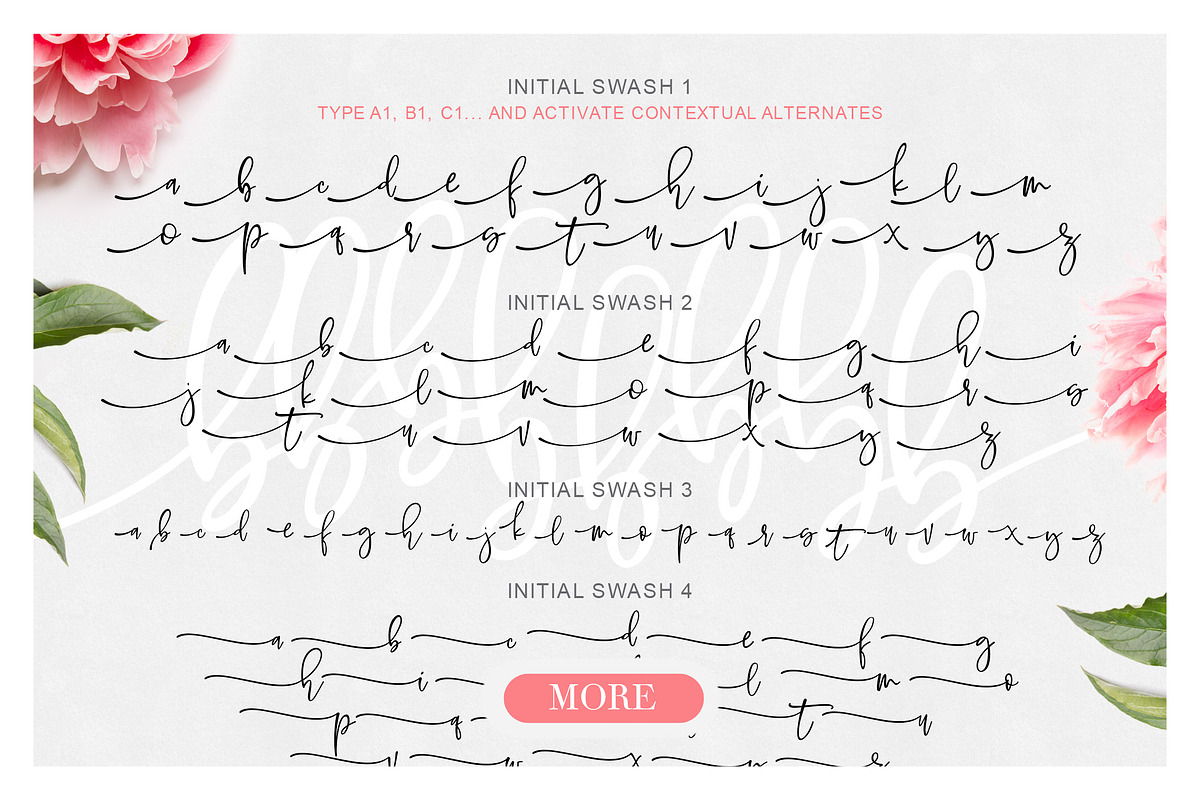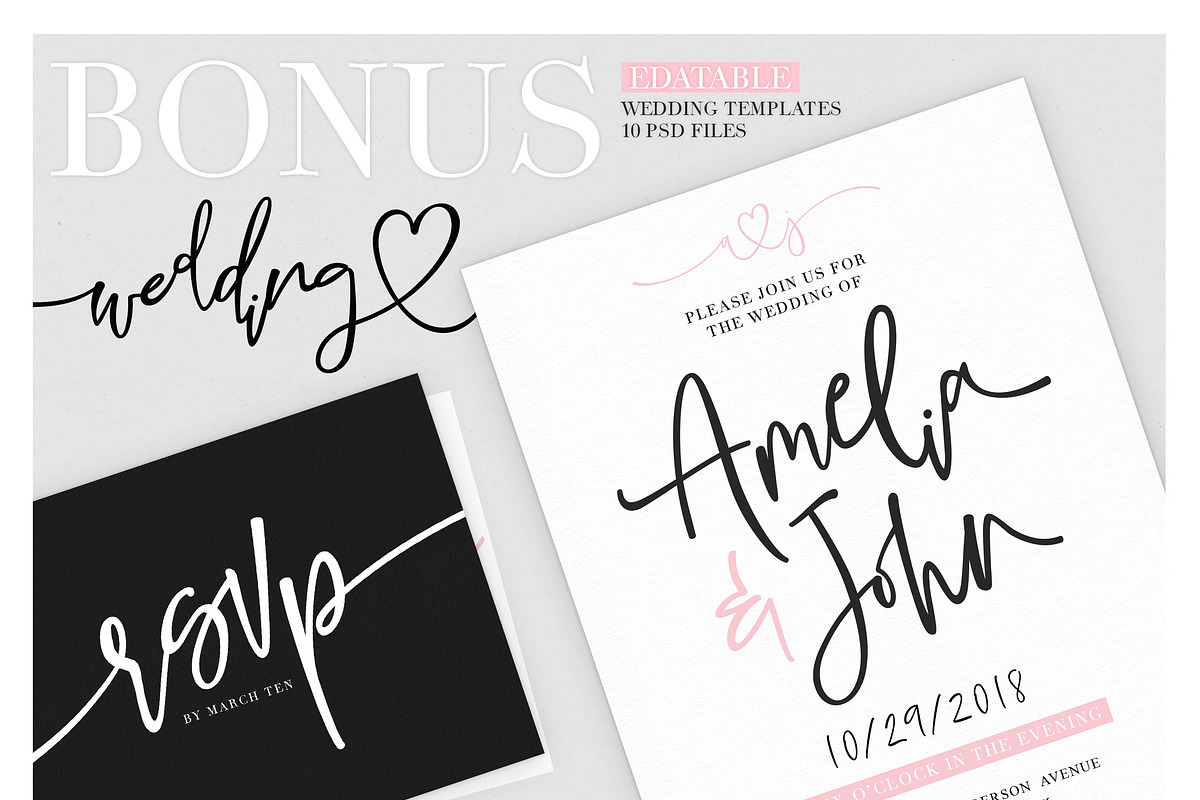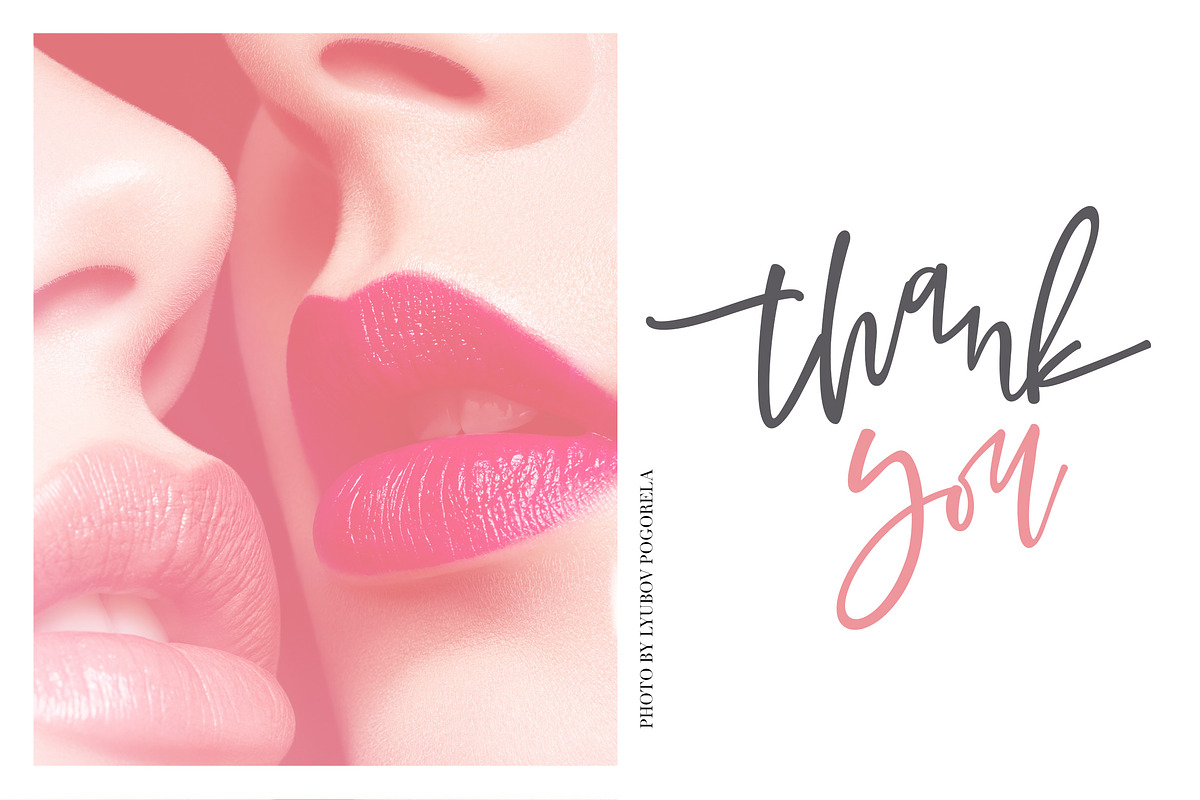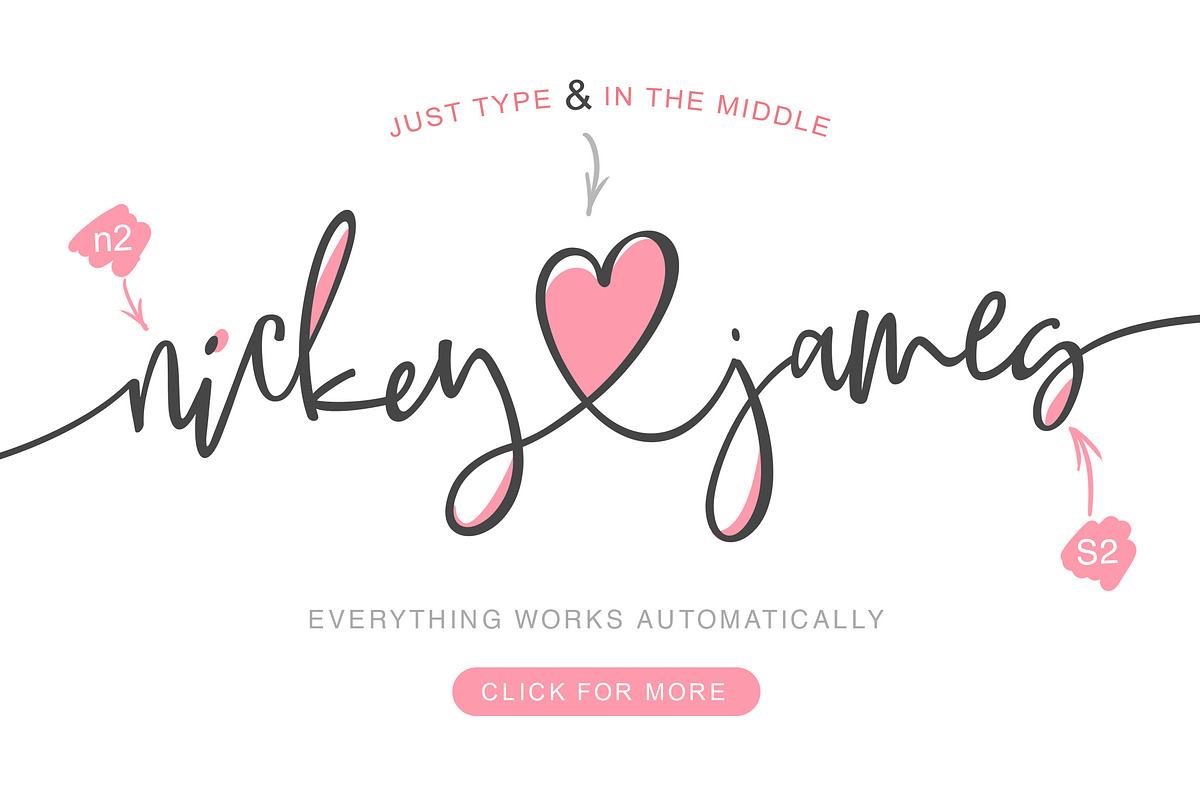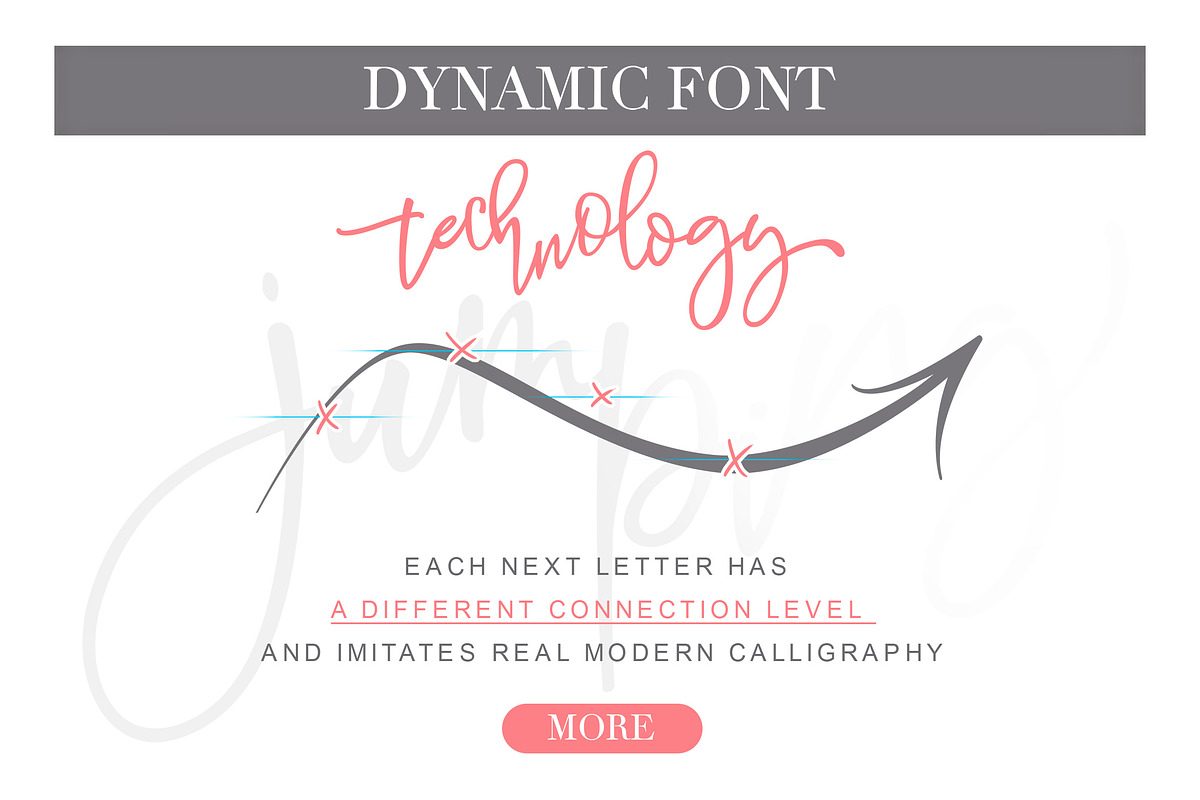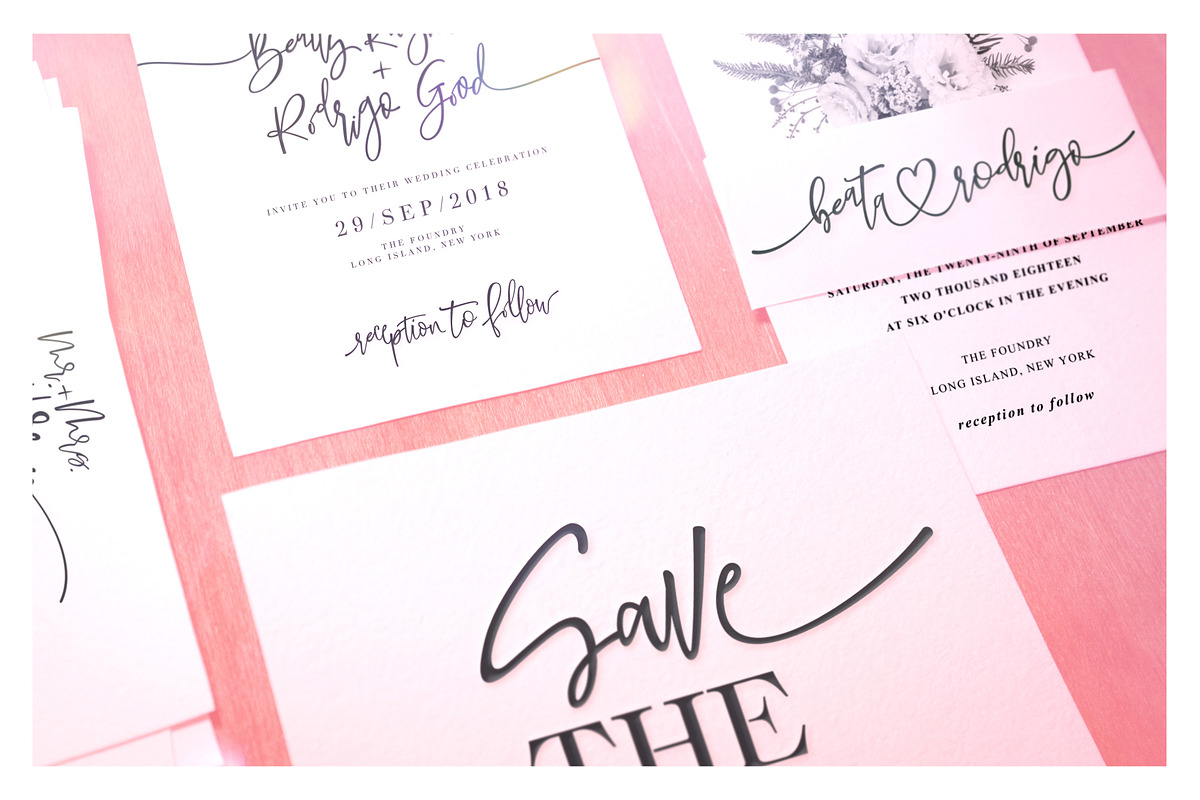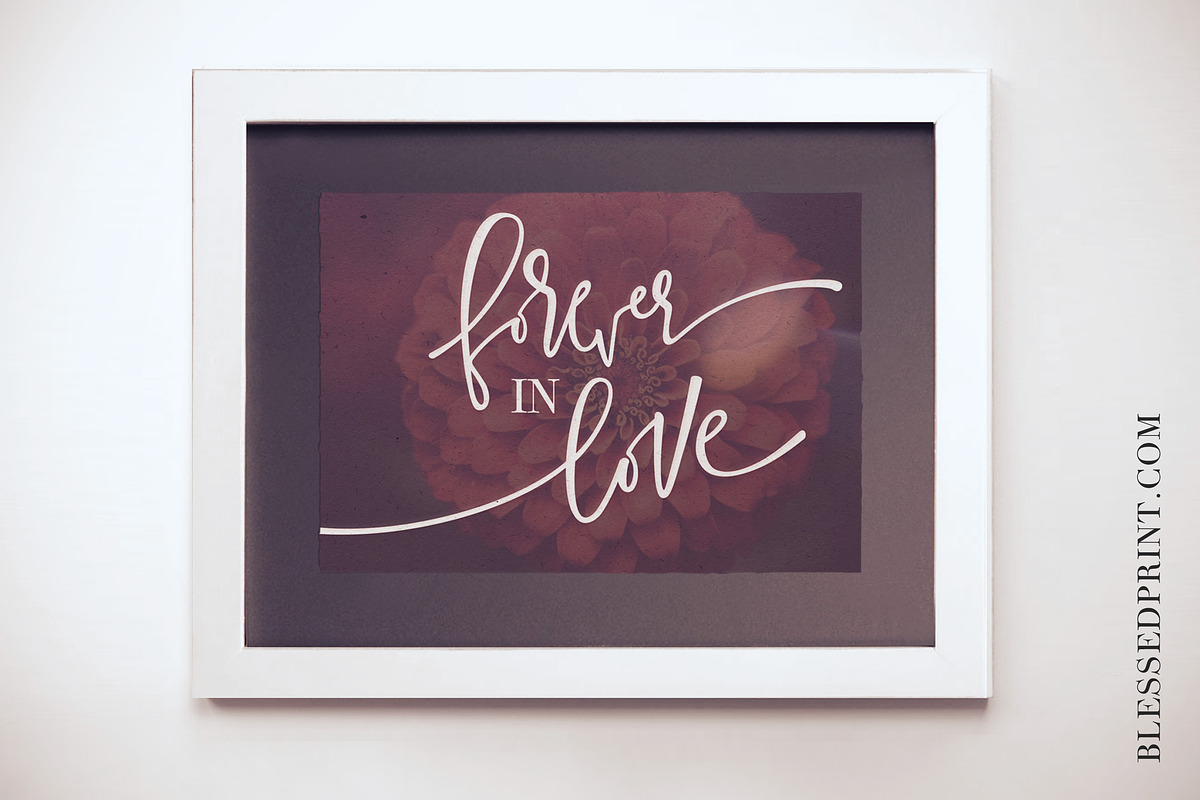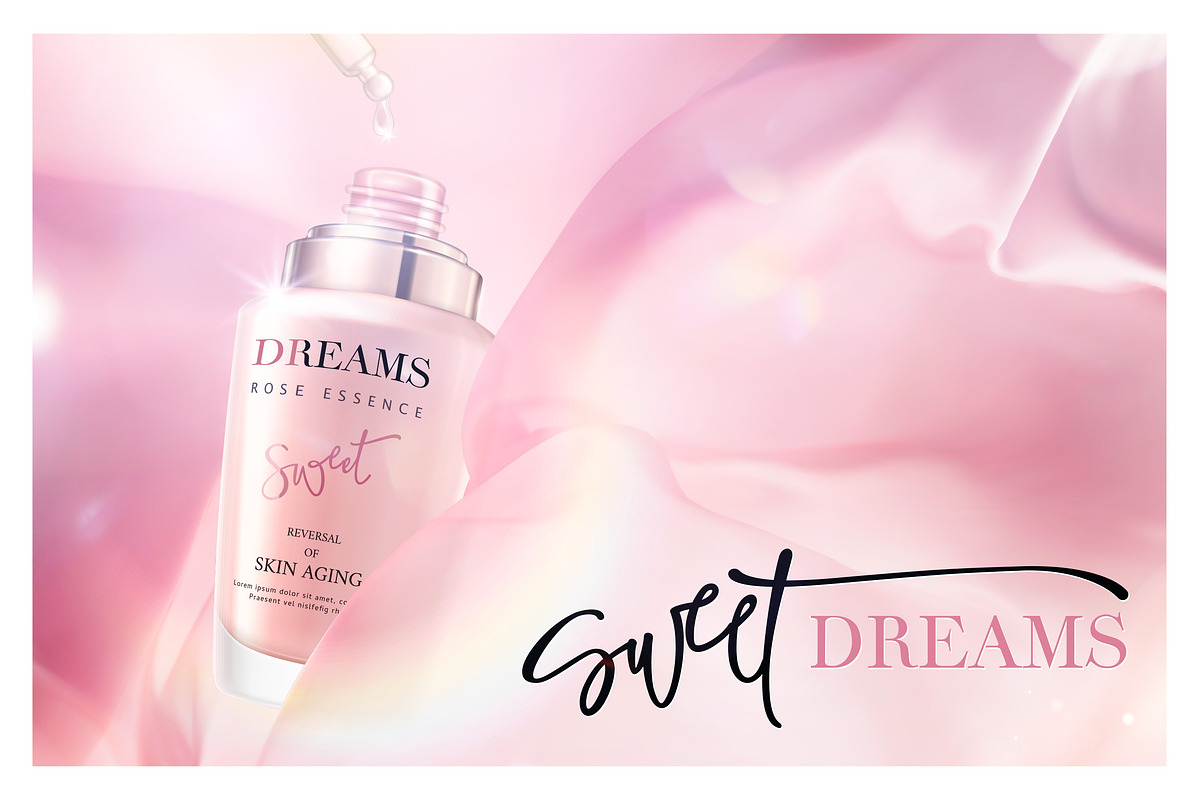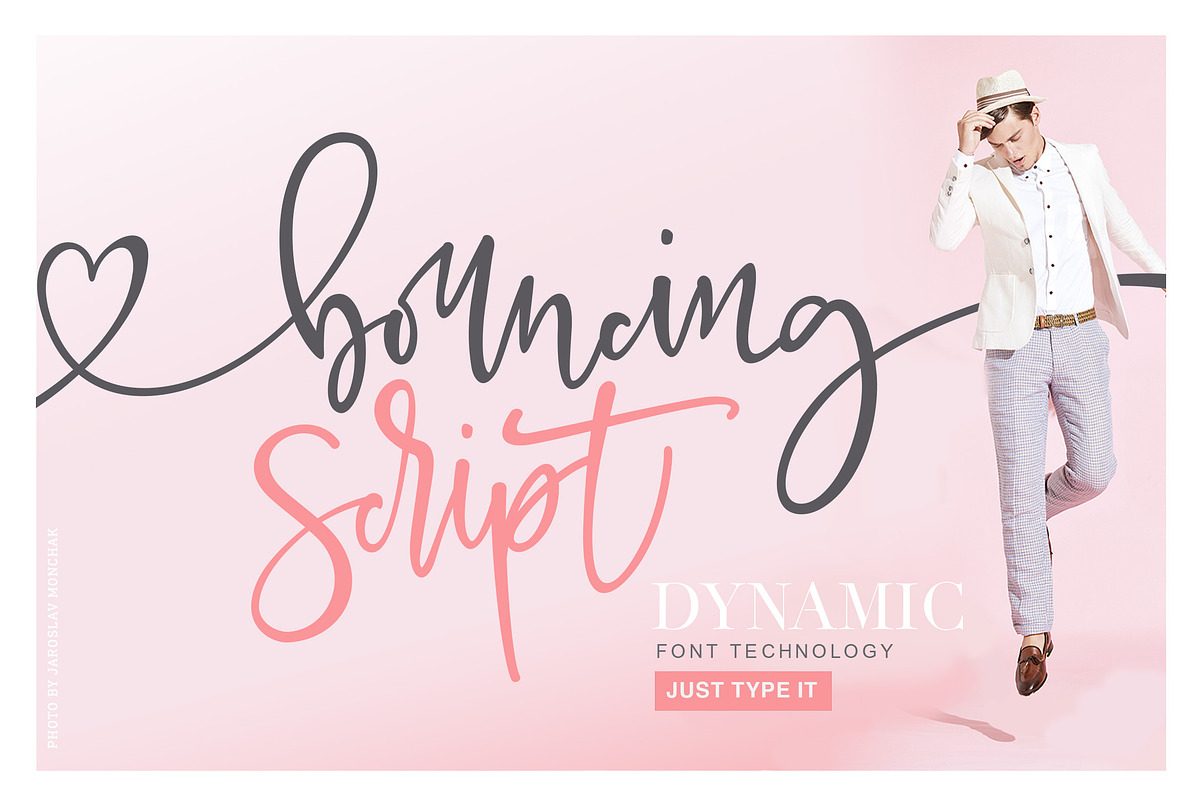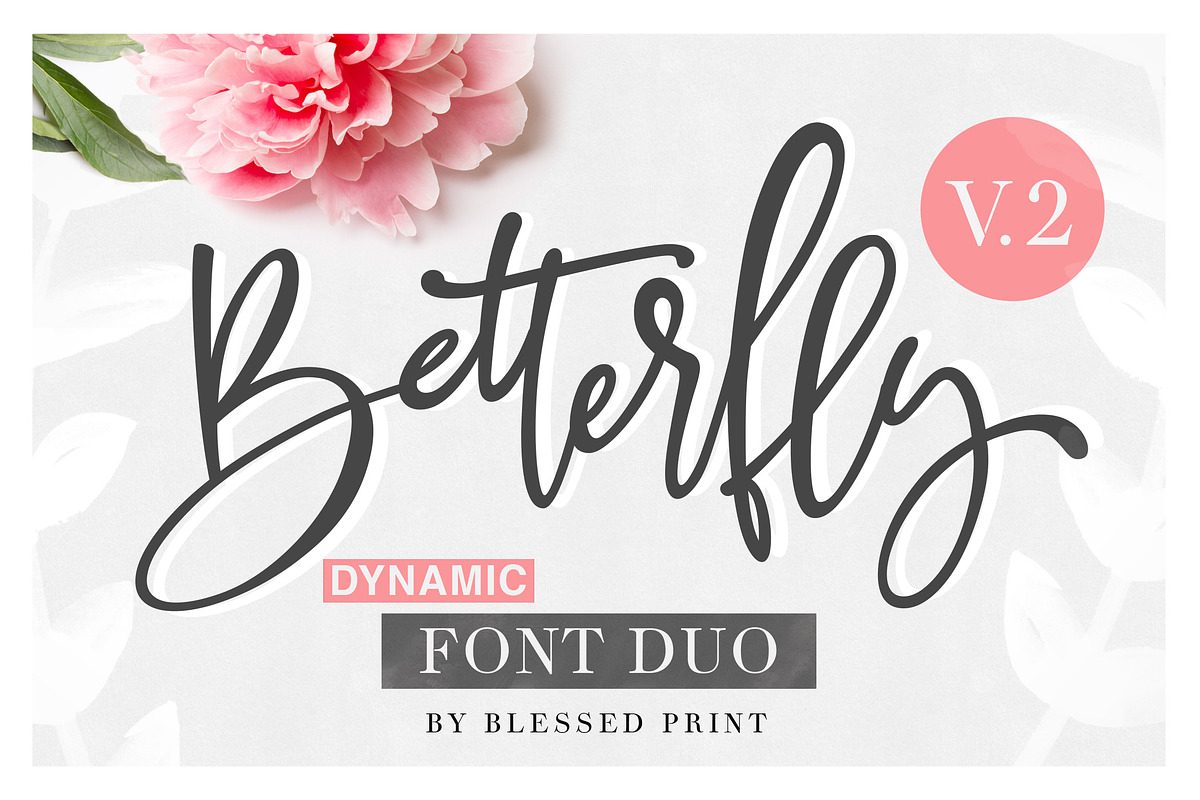
BetterFly 2 - Dynamic Font Duo
Hello to all fontaholics from around the world! Introducing BetterFly 2 Font Duo - Script & Serif with a BONUS (Wedding Invitation Suite). I am sure you have many modern calligraphy fonts, but all of them don’t have “dynamic technology” just because it was developed specially for the new BetterFly.
💝 What does it mean? Dynamic font?
It means that every next letter you type automatically changes its own base line and connects the next letter at a different level. Absolutely all continuous fonts have a common rule. They always are connecting at the same level. Betterfly 2.0 is different! It simulates original calligrapher writer.
💝 How does it work?
💝 Pre-made Swashes
Betterfly2 has plenty of integrated and individual swashes. Whenever you need to add quickly some nice swashes just type a number after a letter. For example on the 2nd screen you may see “bouncing” with heart in the beginning and long swash in the end. So to get this just type b5ouncing1 Not necessary to search for the glyph. It is fast and fabulous!
💝 Individual swashes
Betterfly 2 also has 9 kind of individual swashes for beginning and ending. Just type --1 --2 or --9 same for ++1 or ==1 See help file for more details.
Opentype features and more
- Contextual alternates - activate to apply dynamic technology
- Stylistic alternates - alternatives
- Standard ligatures - activate whenever you need to apply ligatures.
- PUA - all glyphs have it’s own ASCHII code
- Multilingual - it supports many languages. Important that dynamic technology works only for basic 26 latin letters
- Total amount of glyphs: 1442
- Betterfly2 script with 1442 glyphs, swashes and dynamic font technology
- Betterfly2 ALT alternate version
- Betterfly2 SERIF a complimentary font for pairing with script.